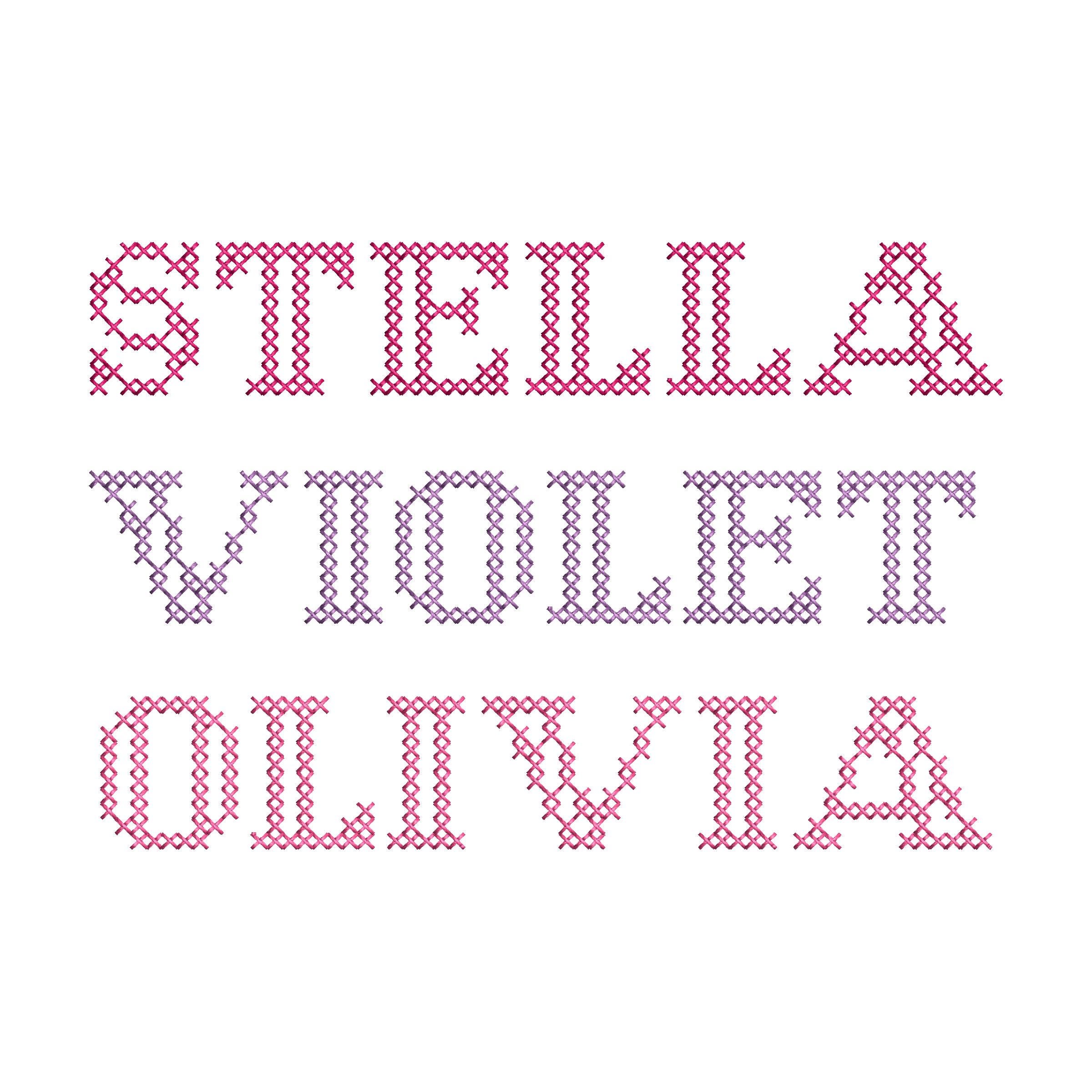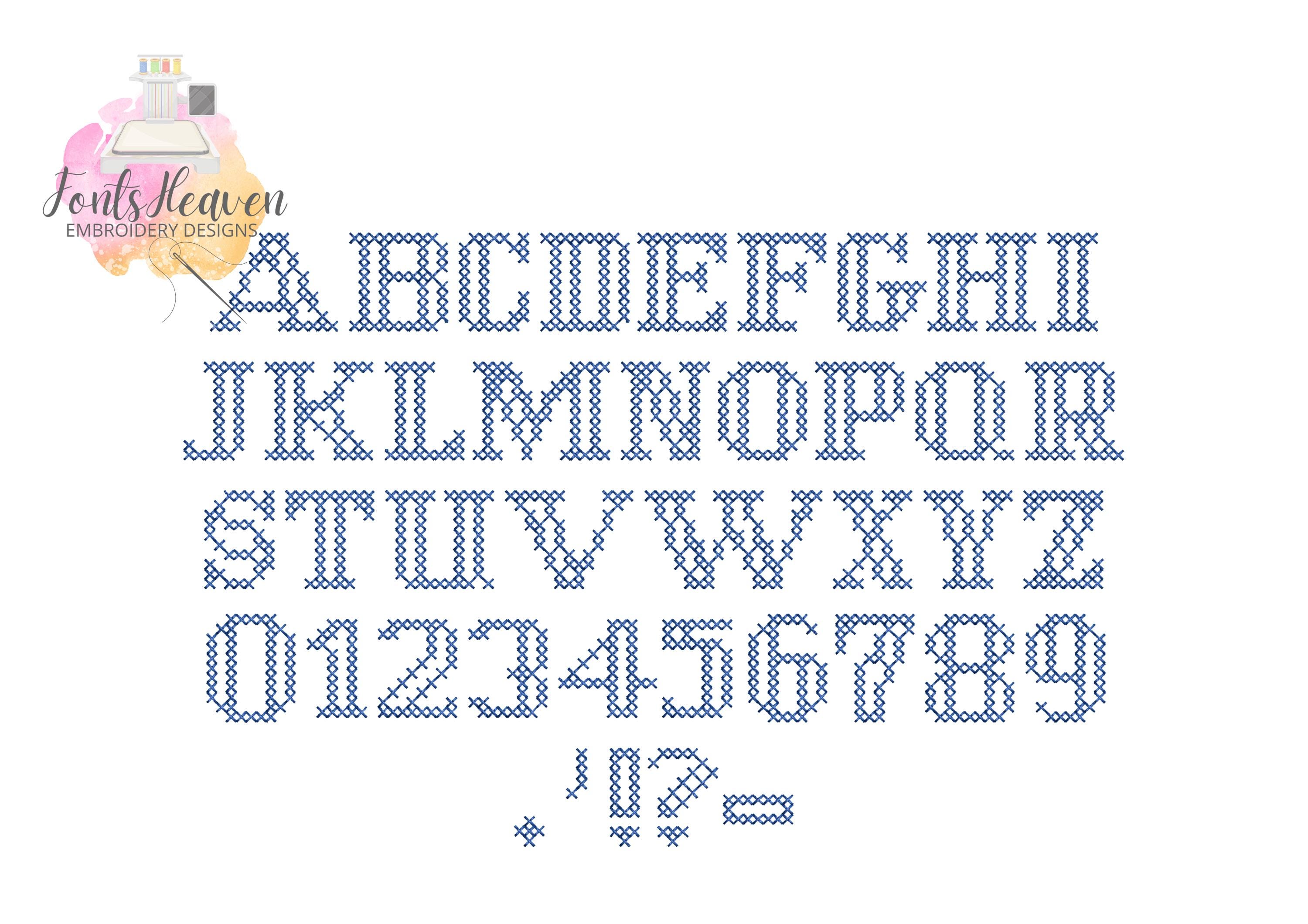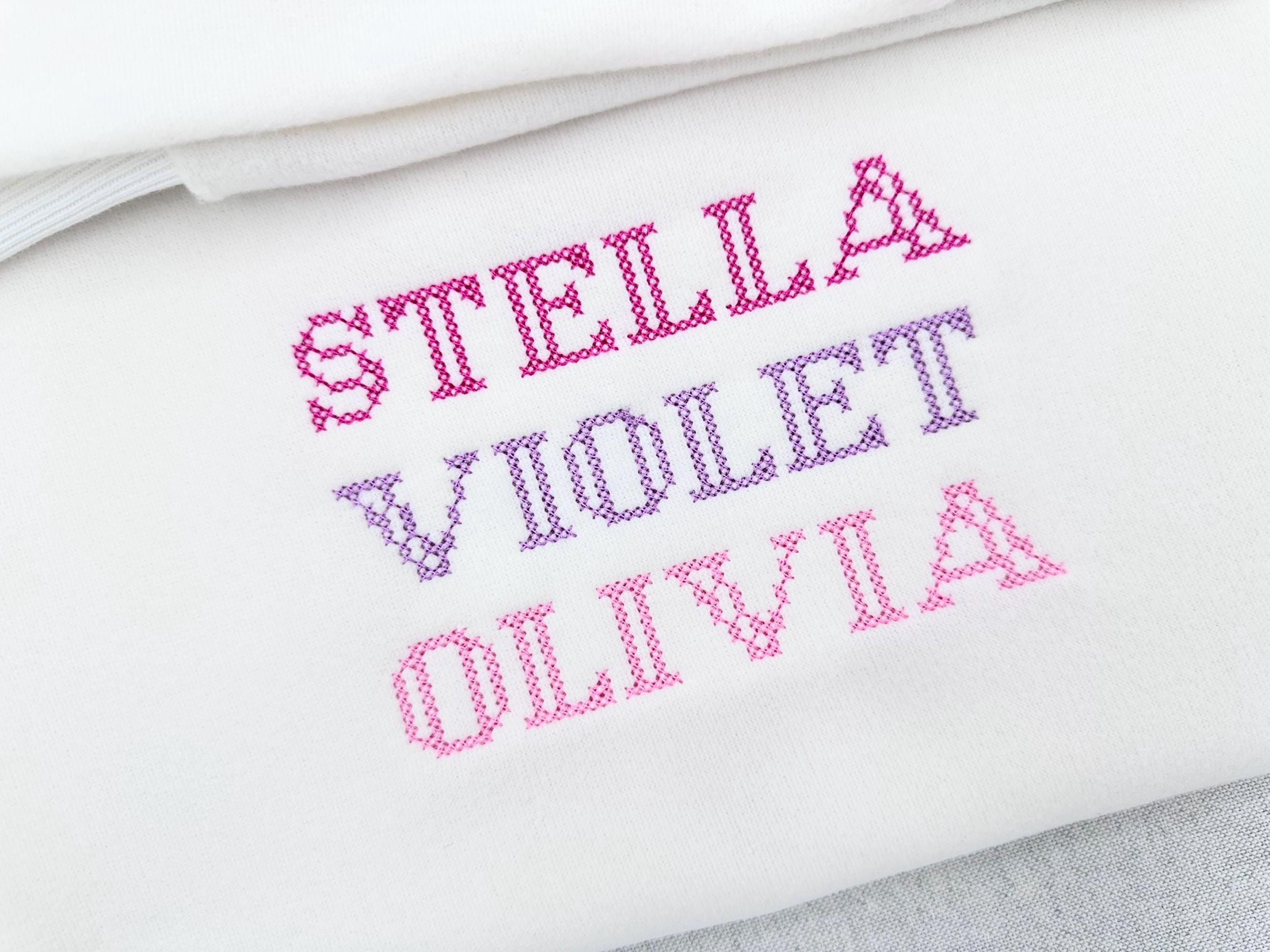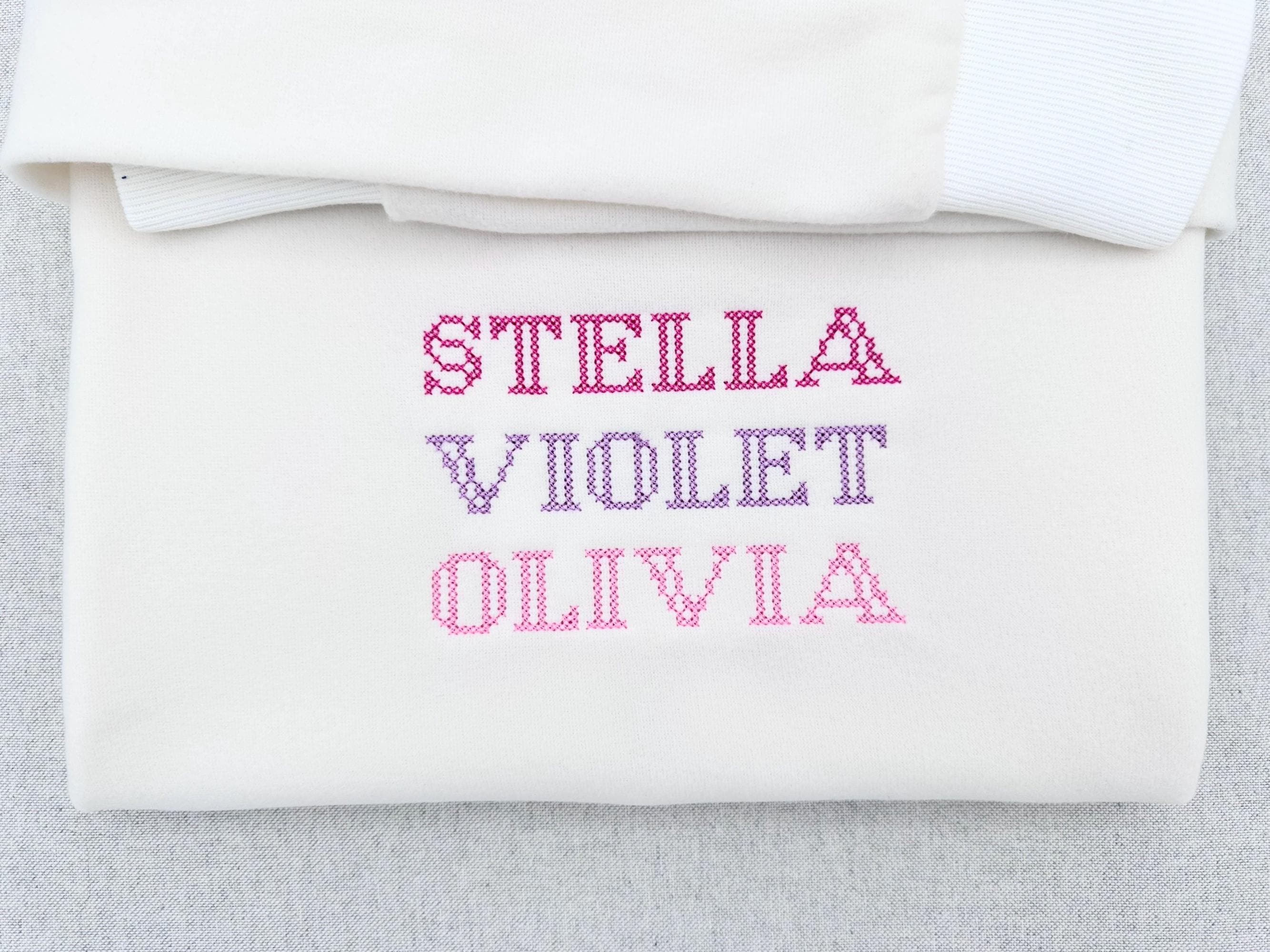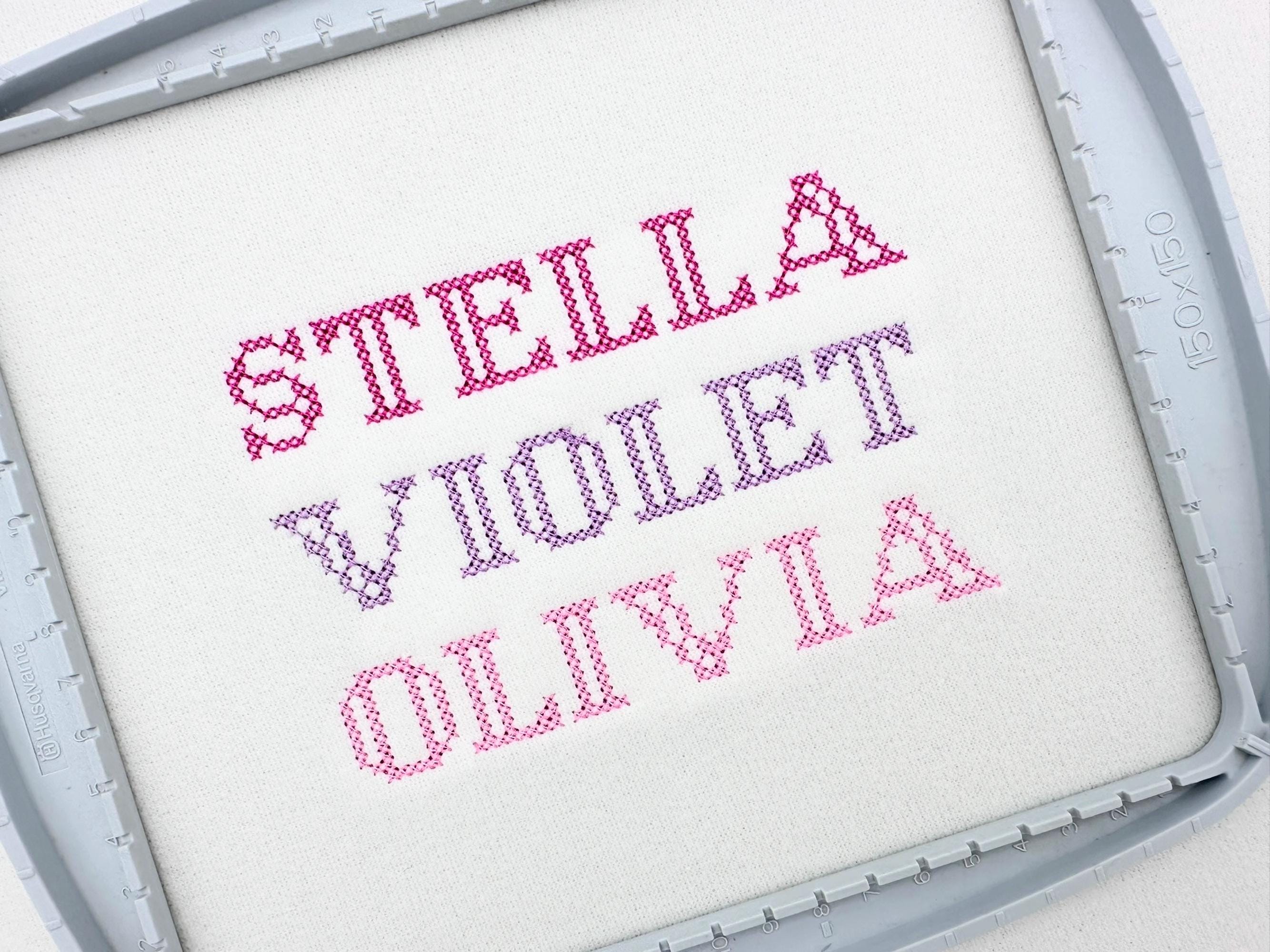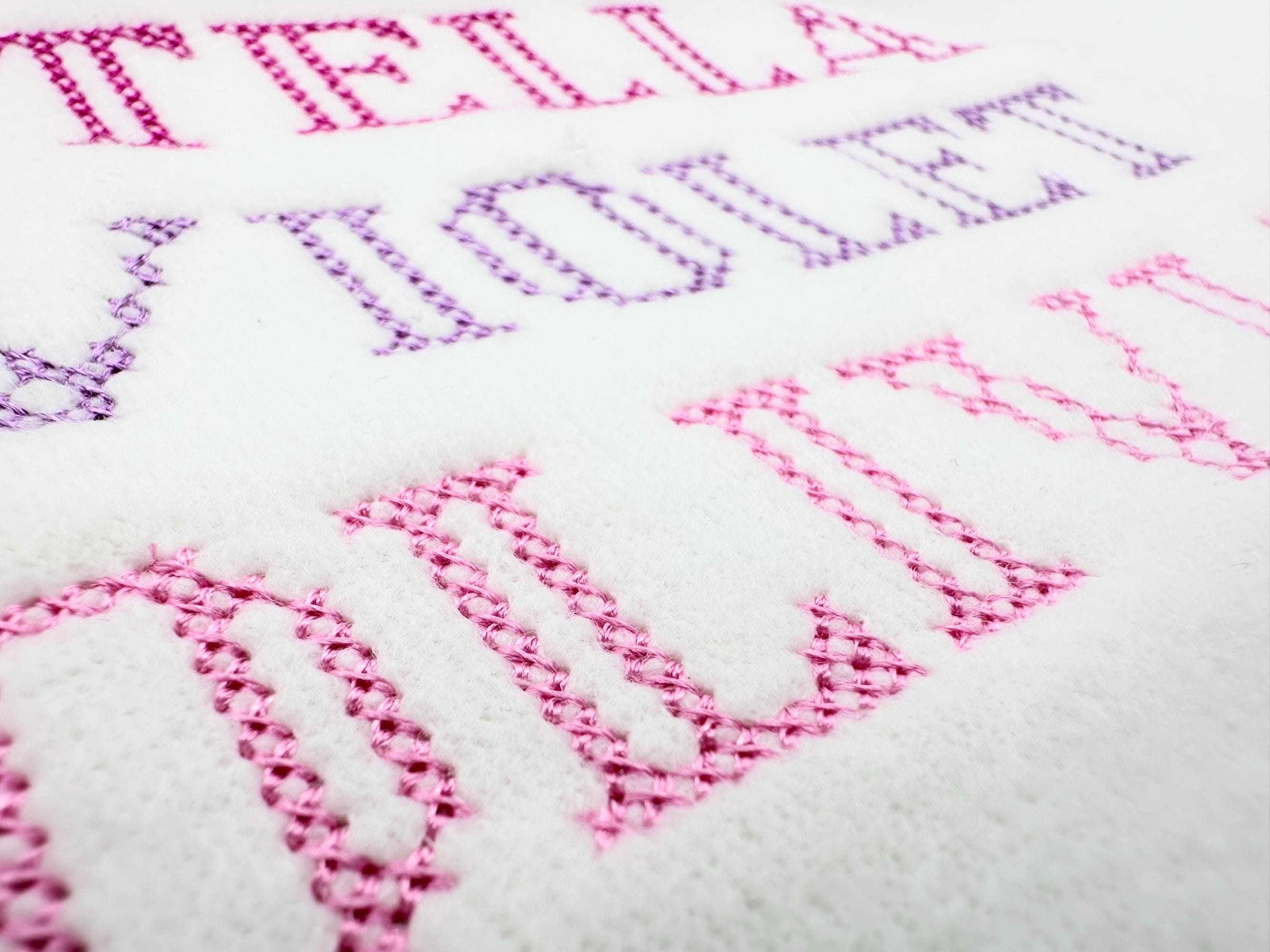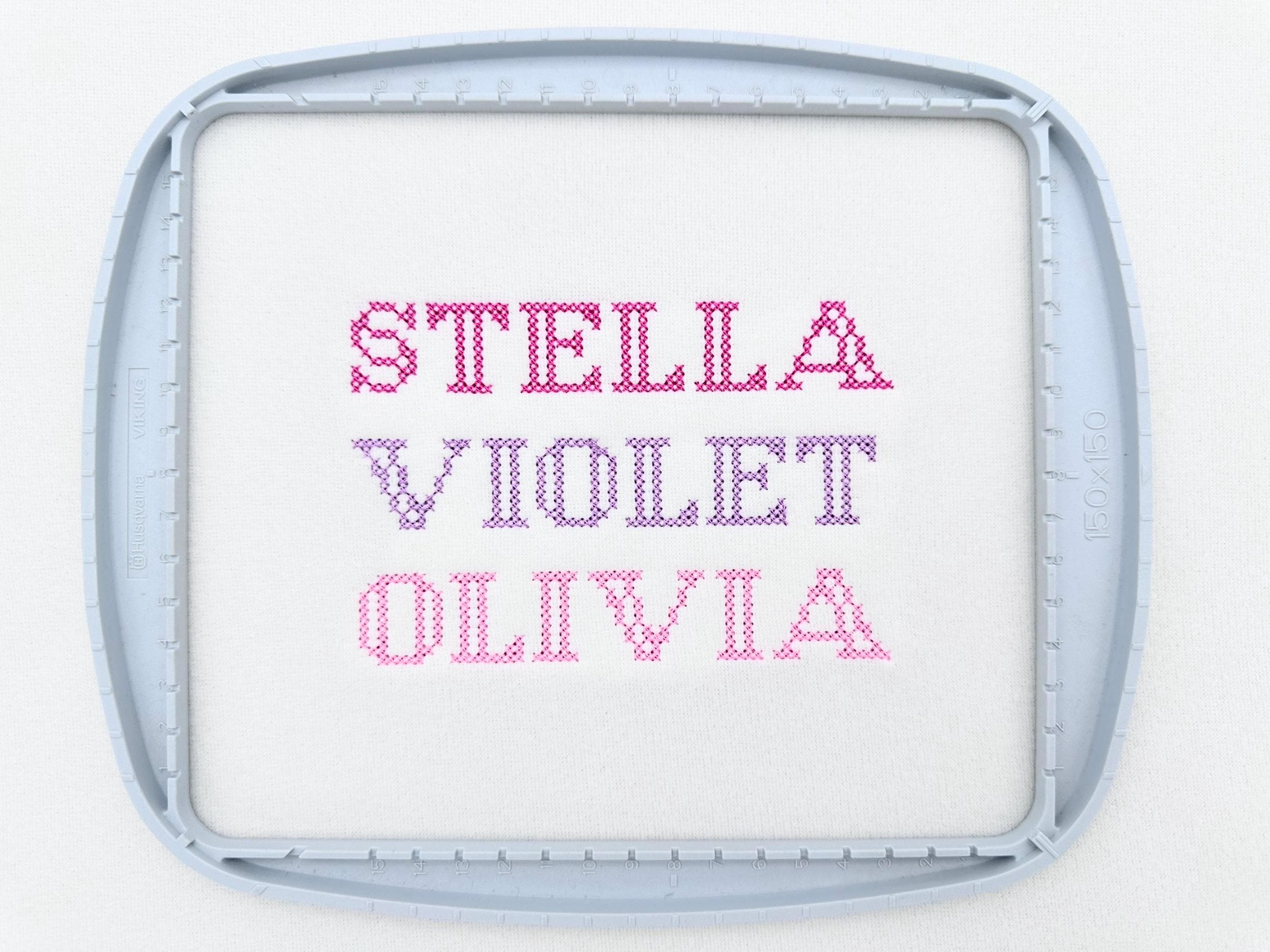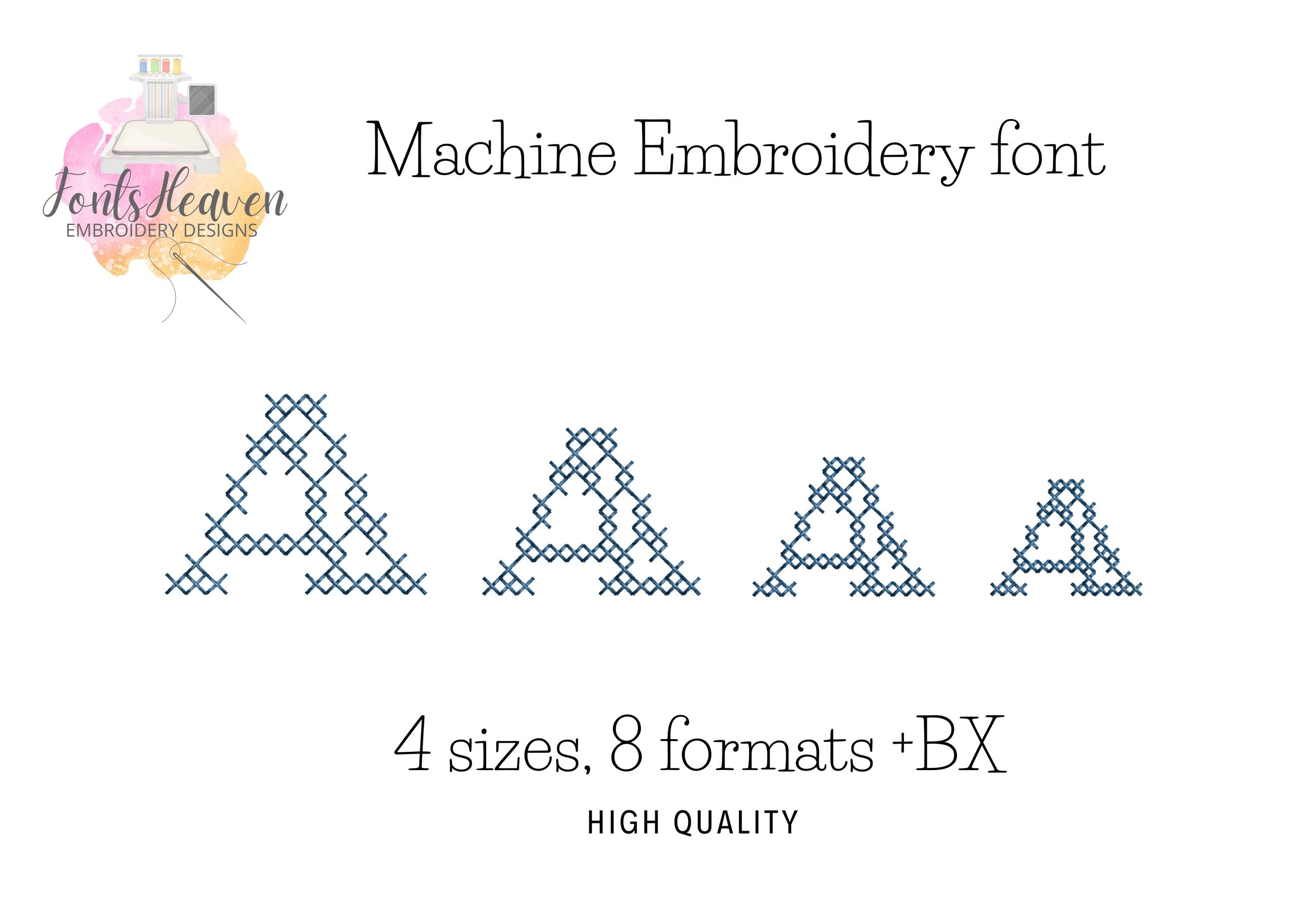
Cross Stitch FONT authentic bold block style Alphabet Monogram folk machine embroidery designs mini sizes 0.7 up to 1.2 inches, BX
Entire alphabet uppercase letters A-Z, numbers 0-9, and punctuation.
Looks like traditional counted cross stitch, with clean X-shaped stitches and a charming handmade feel. Perfect for creating names, sayings, and decorative text with an authentic stitched appearance.